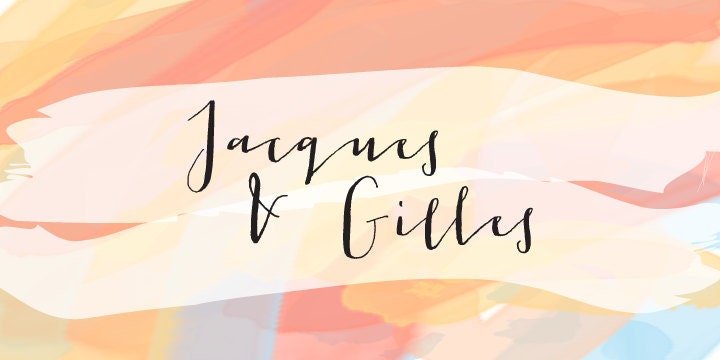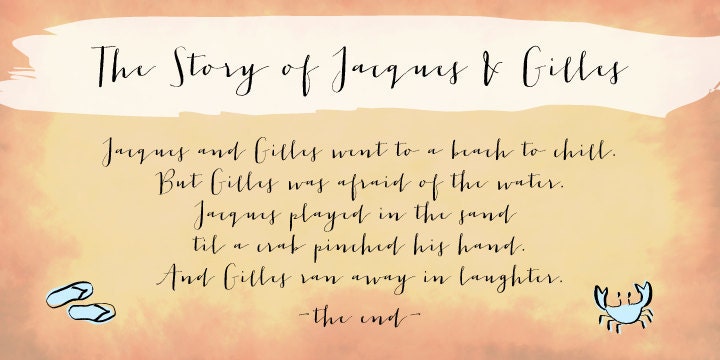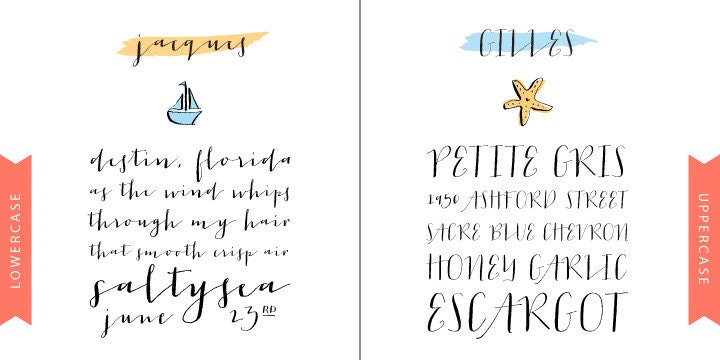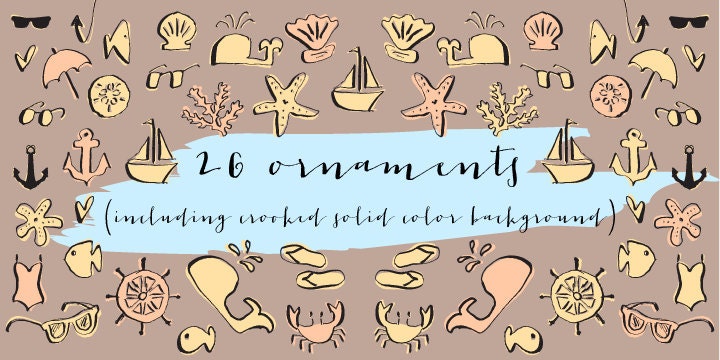
J & G is the most interesting hand-lettered font yet - due to it’s split personality. This font is relatively small compared to other Emily Lime fonts. And yet it packs a punch!
There are two “personalities” in this font:
Jacques’ persona comes to life when typing in all lowercase letters.
And Gilles’: when using all uppercase.
And the best part... Jacques and Gilles were made for each other.
Open-type version features 300+ glyphs including terminal letters, alternates, ordinals, roman numerals (I,V,X) and 2 sets of ornaments - 1 outline & 1 solid so you can create a cool, modern painted effect.